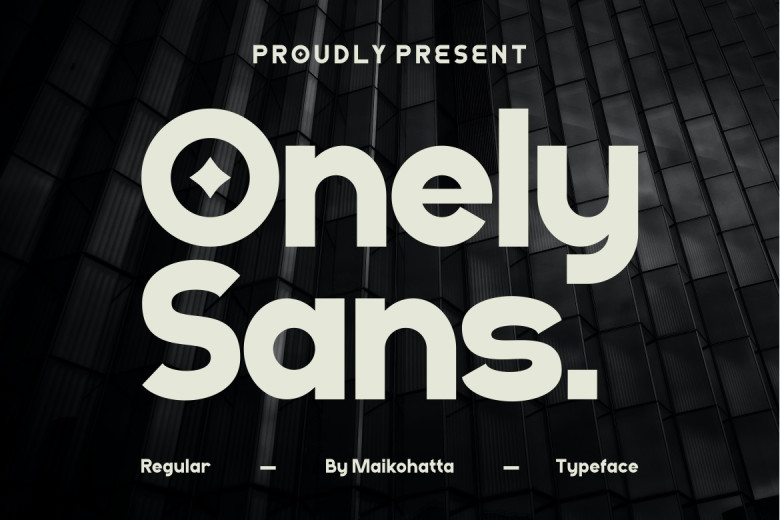
Onely Sans Font
Onely Sans – Font is bold, authentic and modern – making it the ideal font choice for logos, template designs, esports teams and more. Onely is truly remarkable across multiple contexts!